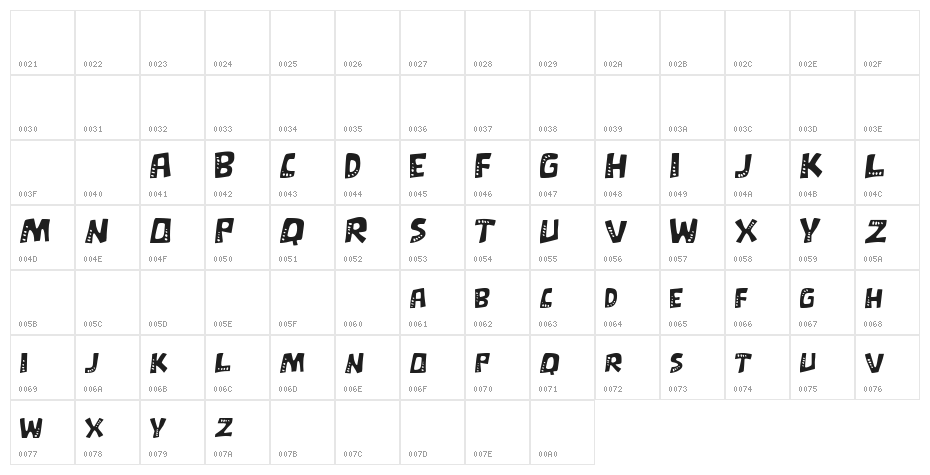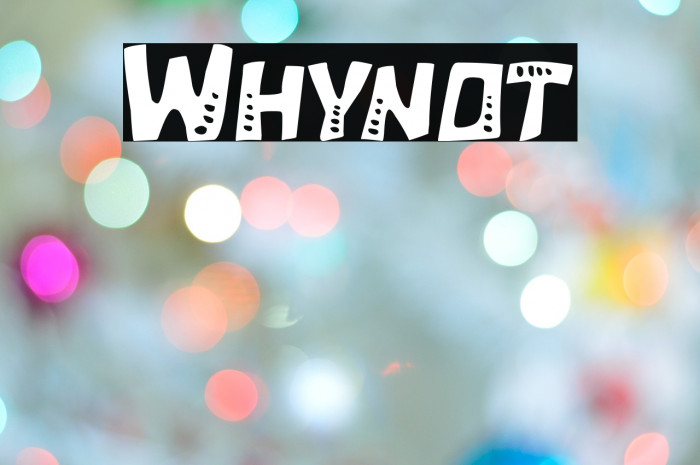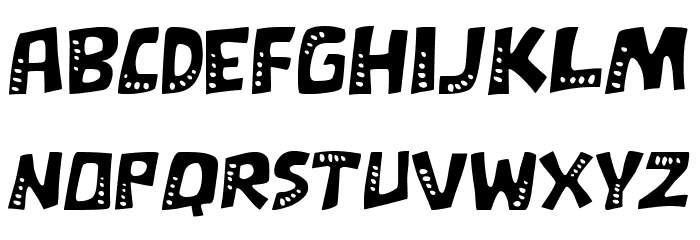
Whynot Font
Whynot Description
This playful and whimsical font features bold, irregular shapes with a dotted pattern inside each character, giving it a lively and dynamic appearance. The uppercase letters are distinct, with varying widths and exaggerated curves, creating a sense of movement and energy. The font's unique style is eye-catching and full of personality, making it ideal for creative and informal projects. Its decorative nature is emphasized by the bold strokes and the playful use of dots, which add a layer of texture and visual interest. The font's design is both fun and approachable, making it suitable for a variety of uses where a lighthearted and engaging aesthetic is desired.
| Proposed Projects | Ideal for children's book covers, playful posters, party invitations, and creative branding. |